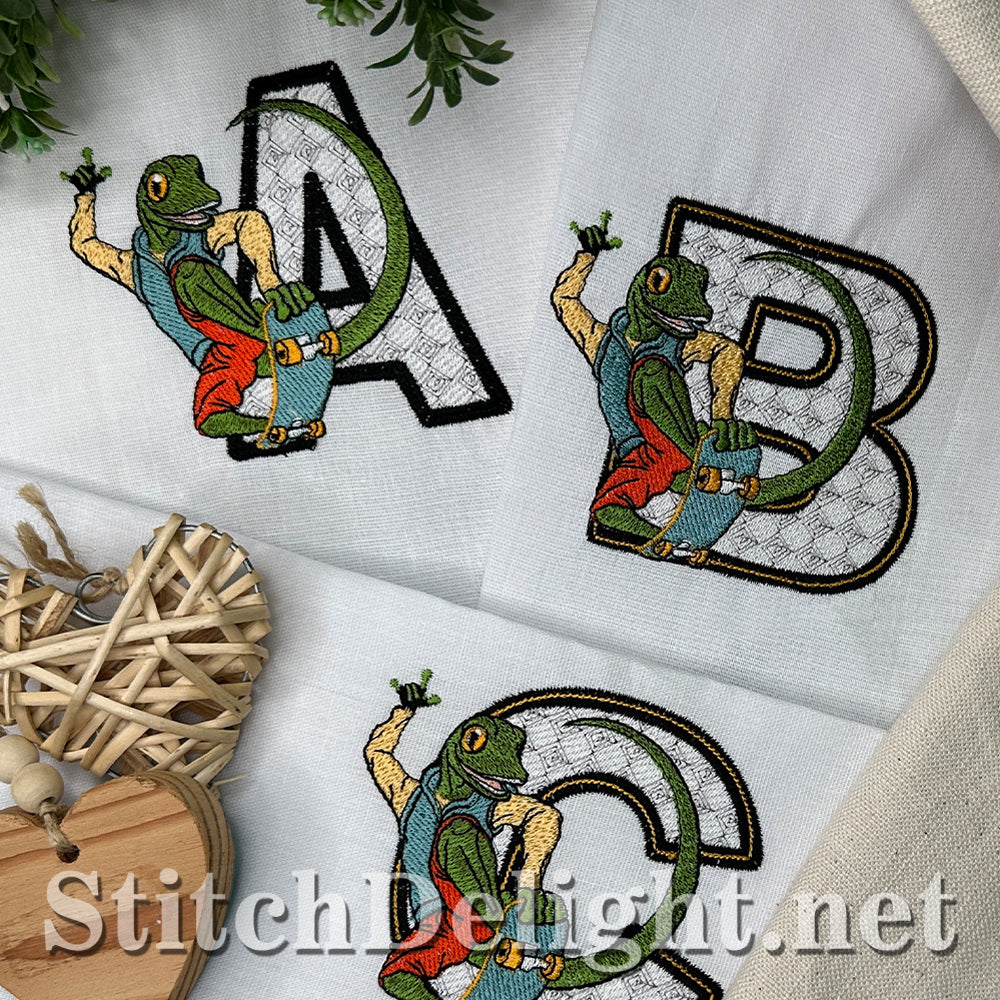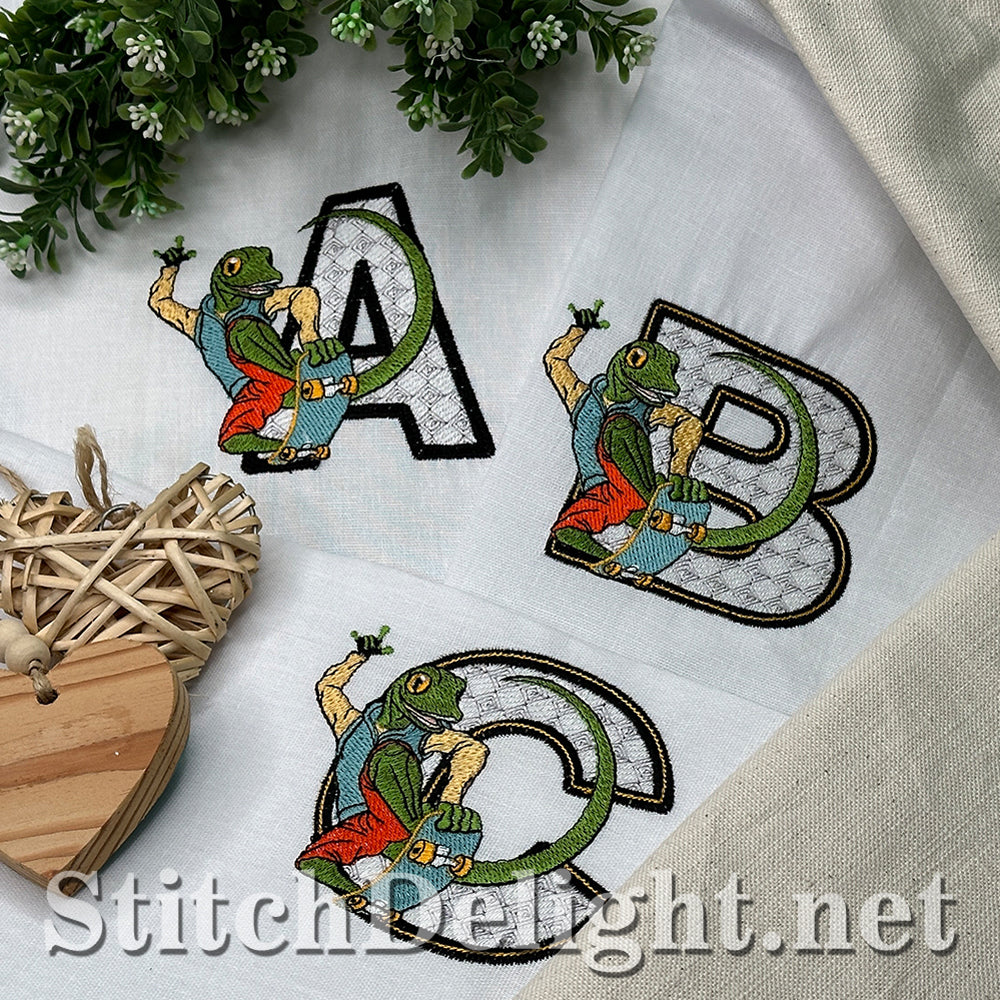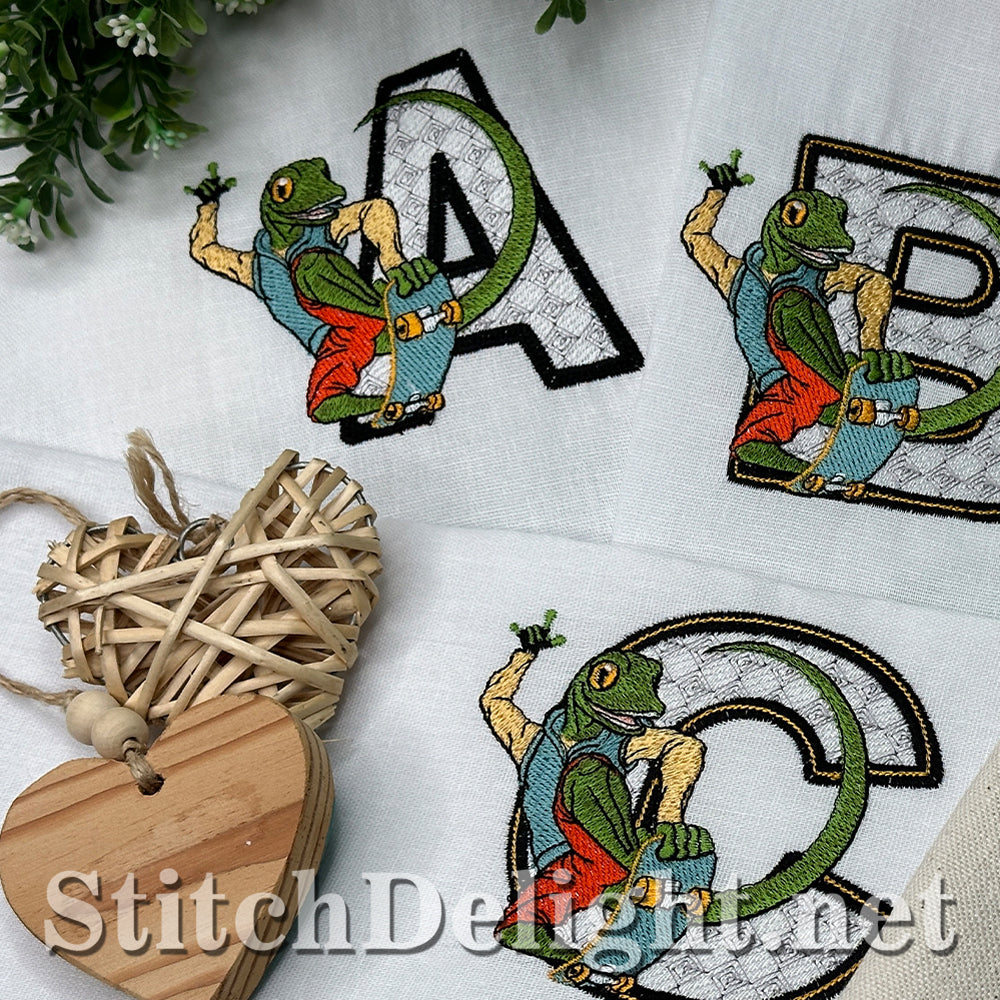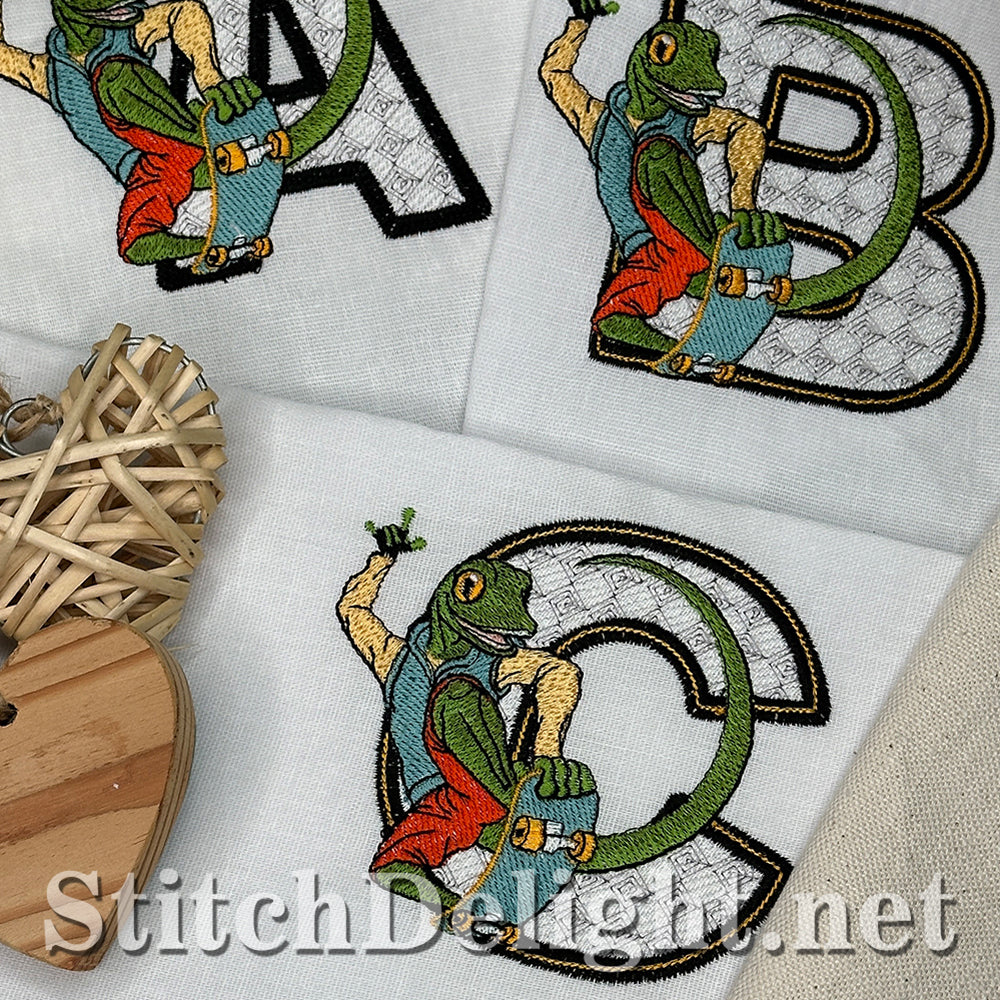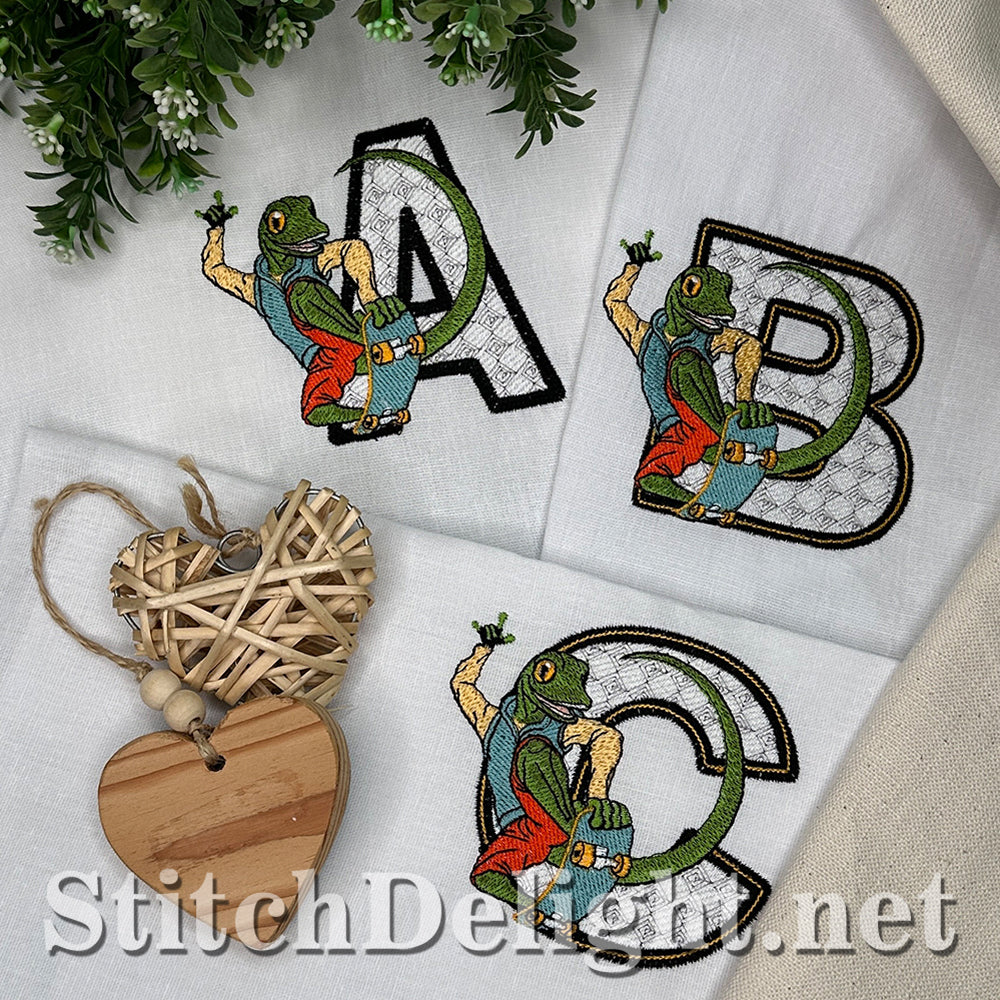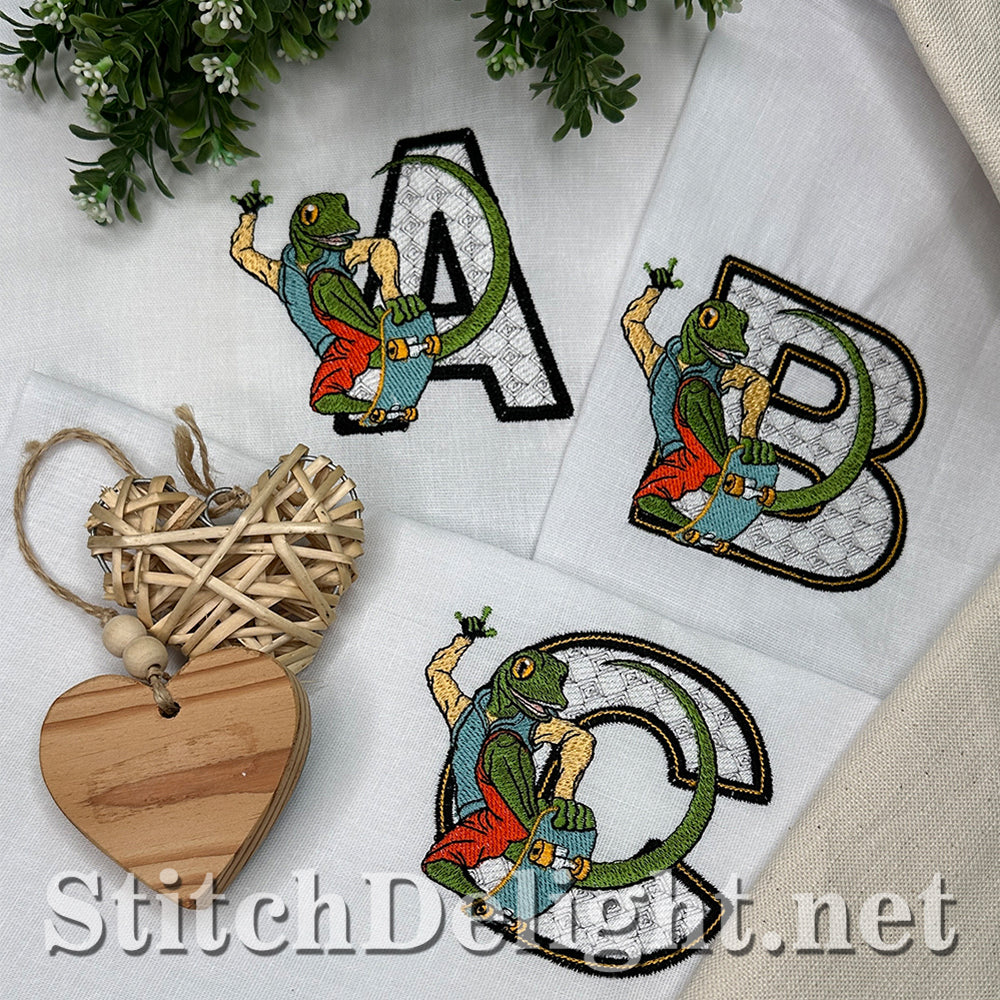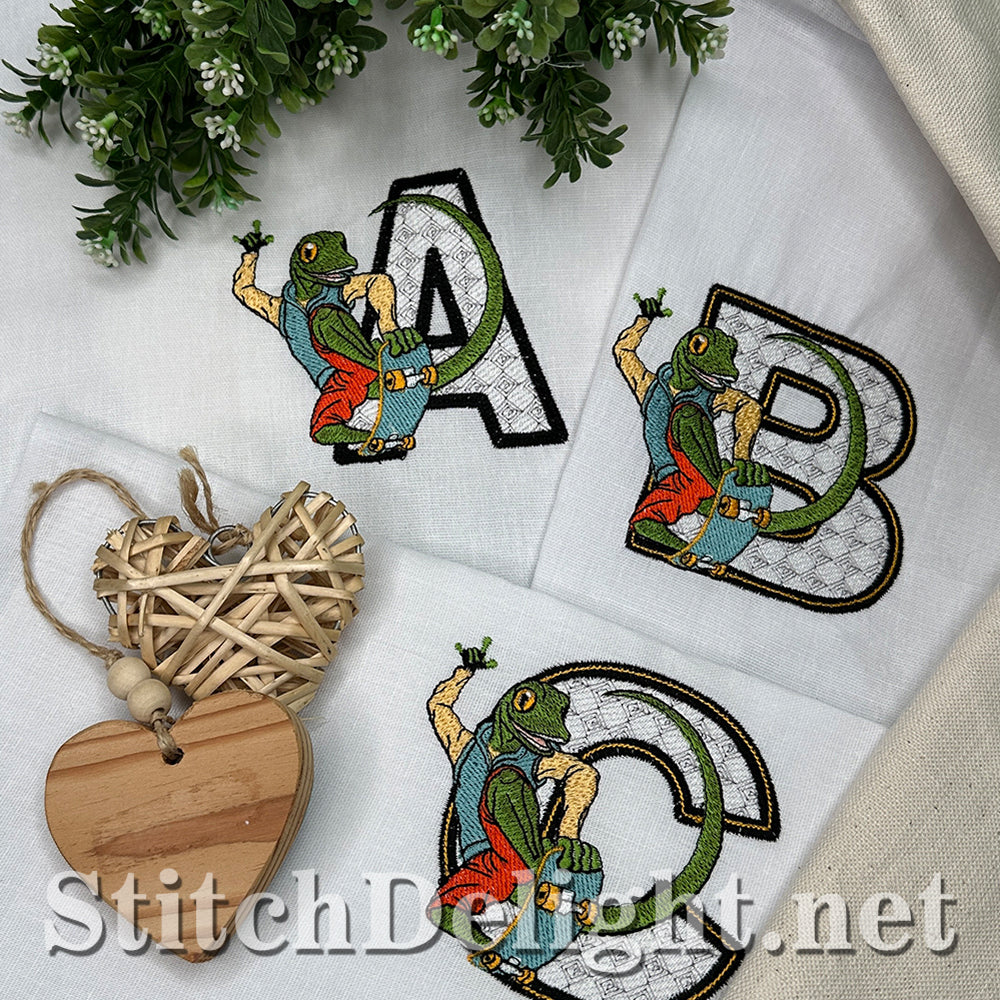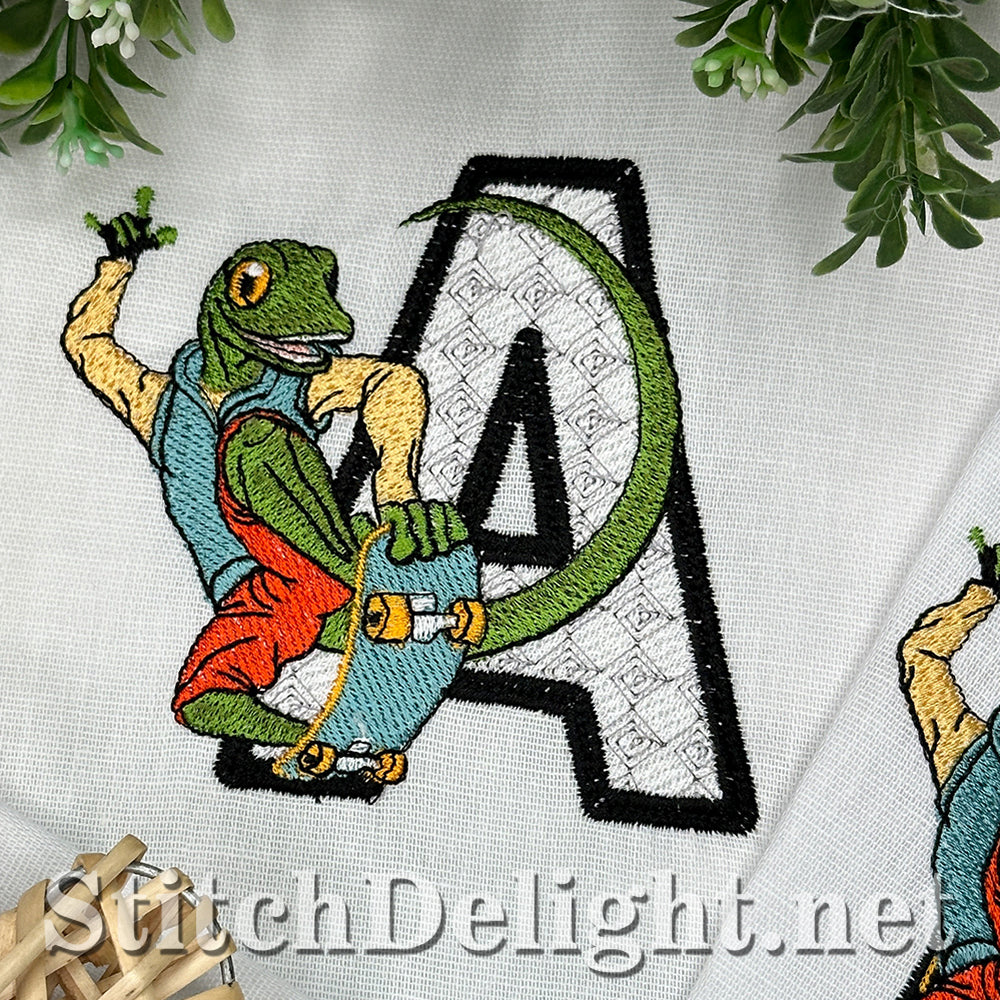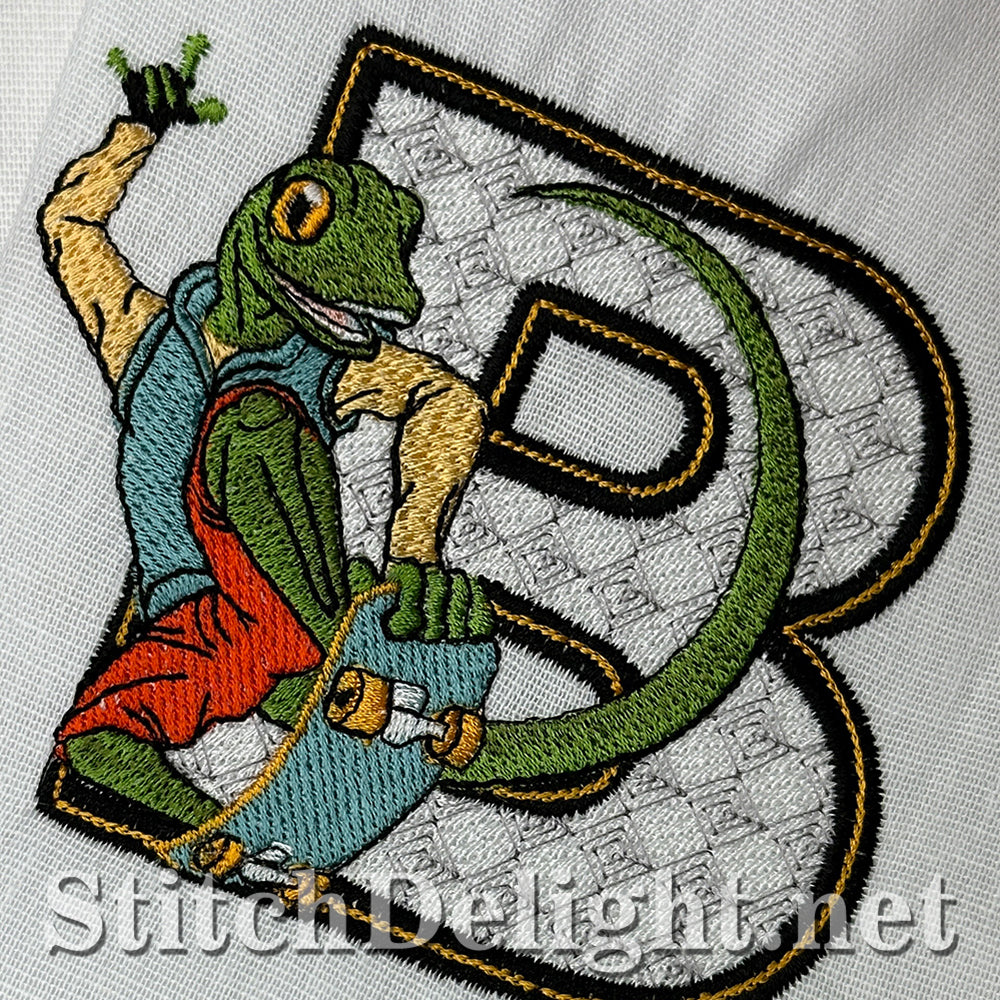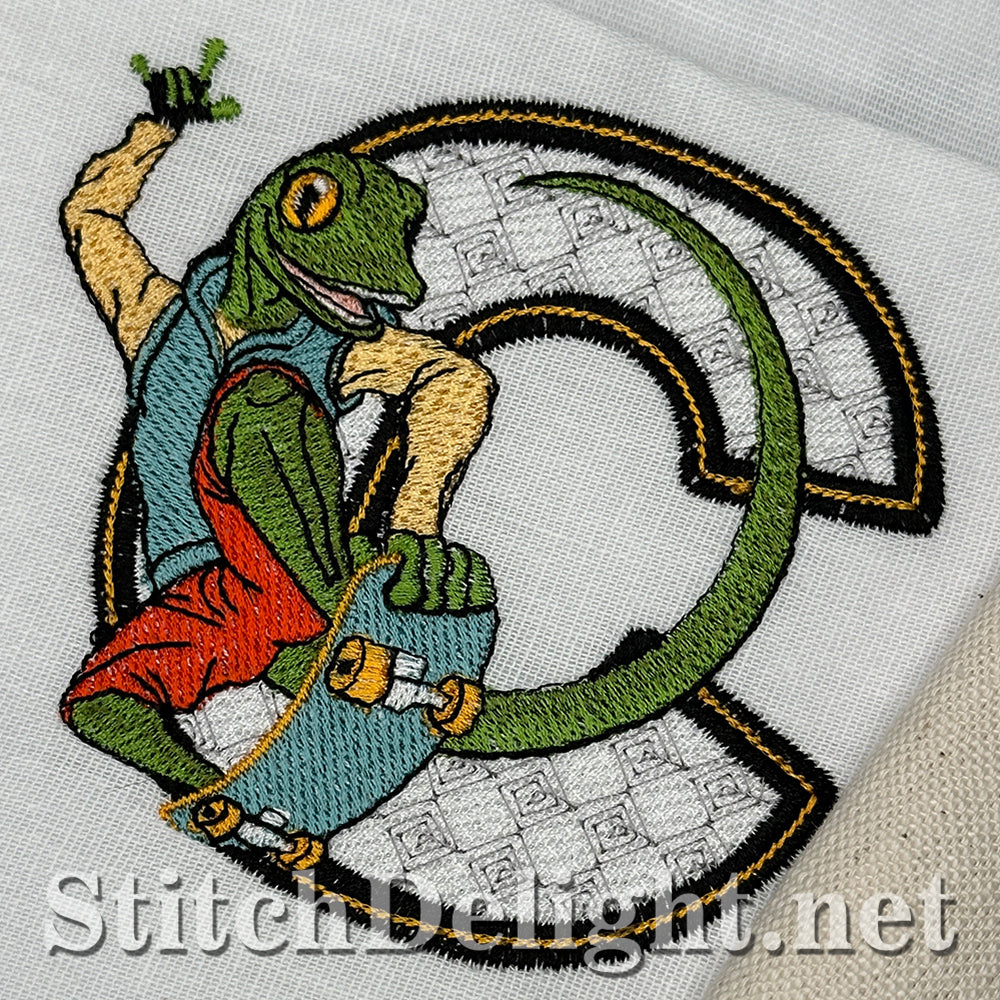
Aimed for the teens and tweens, this super energetic and sporty font is made specially for your 5x7" hoop and will look amazing on jacket backs, sporting bags and towels.